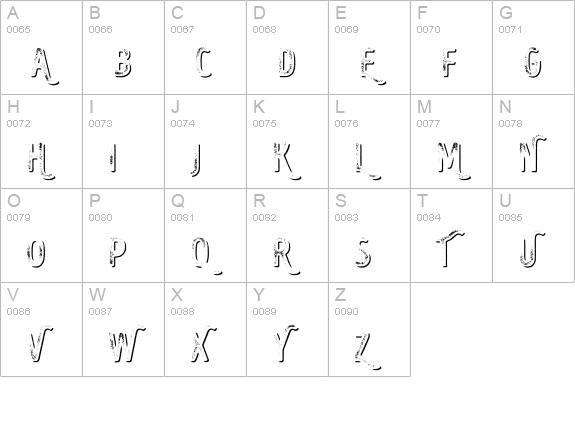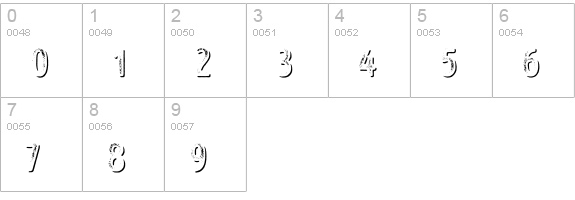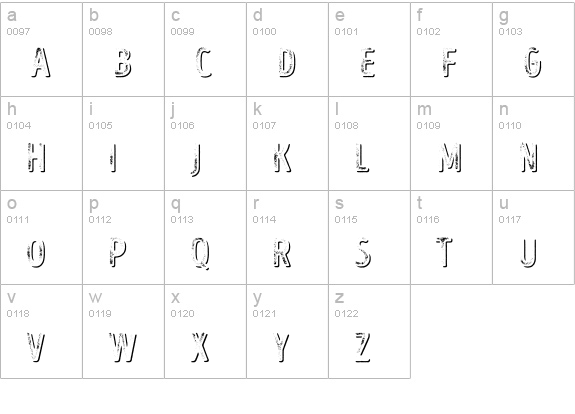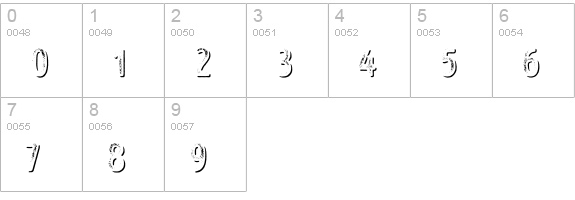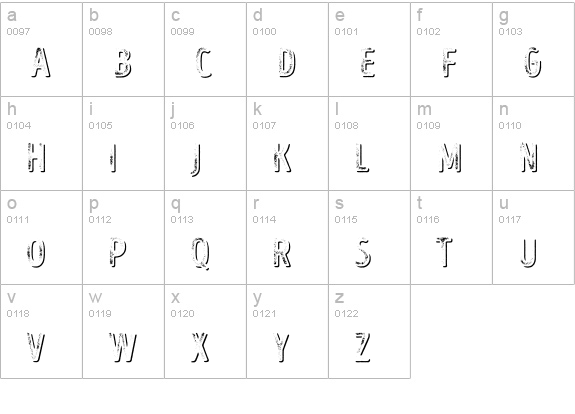
Intro Head B UC G Shade Font Details
The Intro Head B UC G Shade font is a stunning display font that exudes elegance and sophistication. Its bold uppercase letters are intricately designed with a unique shading effect, making it perfect for creating eye-catching headlines and titles. This font is versatile and can be used for a variety of design projects, from posters to branding materials. The best part is that Intro Head B UC G Shade font is completely free to download at FontsMarket.com. So whether you're a designer looking to add a touch of flair to your projects or a content creator in need of a stylish font for your social media graphics, this font is the perfect choice. Don't miss out on this amazing opportunity to enhance your designs with this beautiful and striking typeface. Download it today and let your creativity shine!